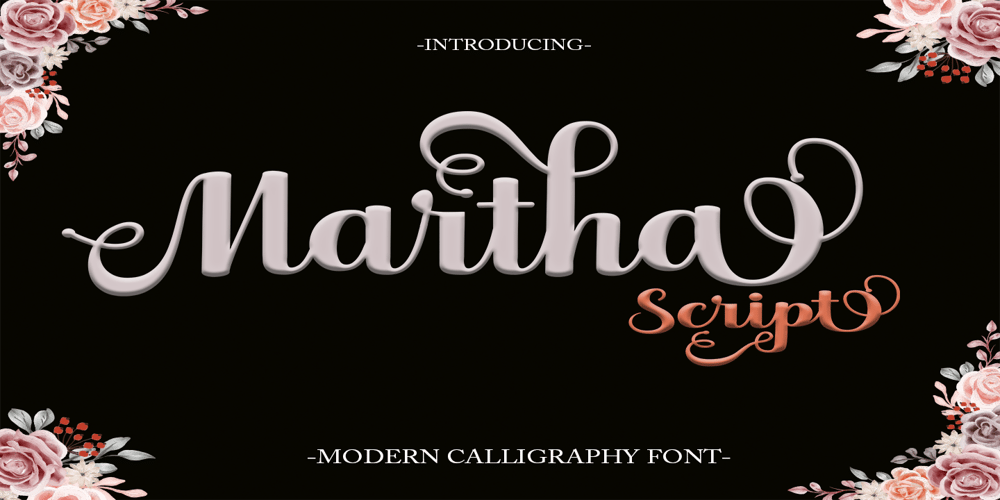
Martha Script
Martha Script font
Martha Script Font Family was designed by Has Rizal and published by Hrz Studio. Martha Script contains 1 styles and family package options. Martha Script feels equally charming and elegant. It looks stunning on wedding invitations, thank you cards, quotes, greeting cards, logos, business cards, and any other design that needs a handwritten touch.This font is PUA encoded, which means you can access all of the glyphs and swashes with ease!